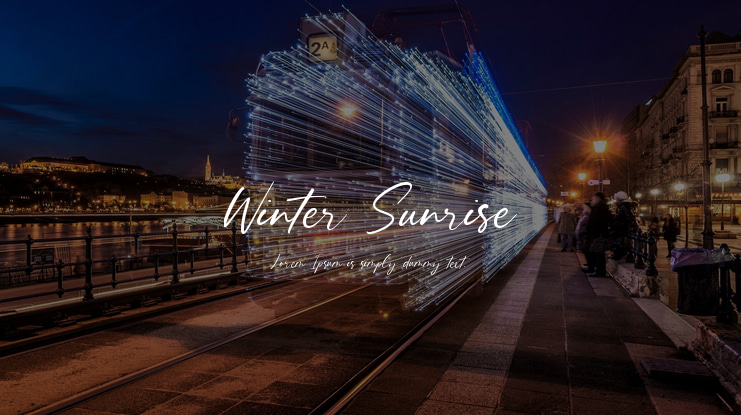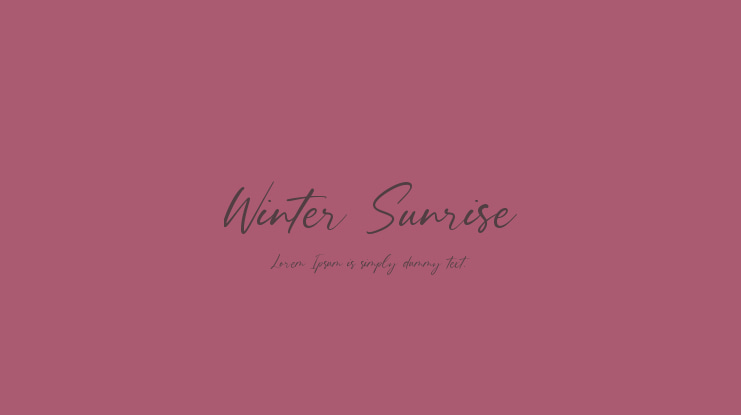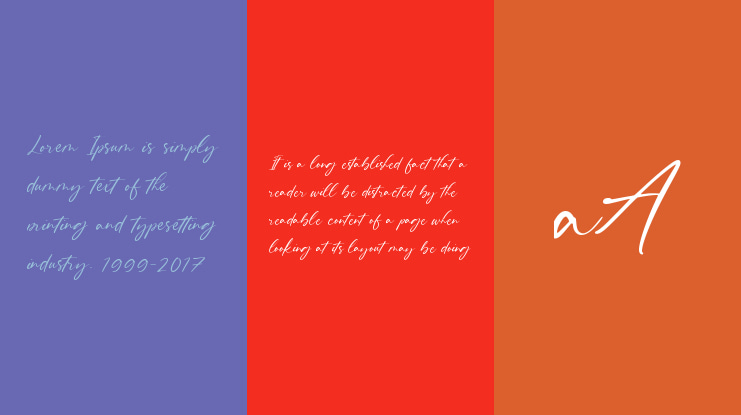
Winter Sunrise Font
Balpirick Studio
Proudly Present, Winter Sunrise Font.
Winter Sunrise is a Modern Handbrushed Calligraphy Font.
Winter Sunrise is perfect for product packaging, branding project, megazine, social media, wedding, or just used to express words above the background.